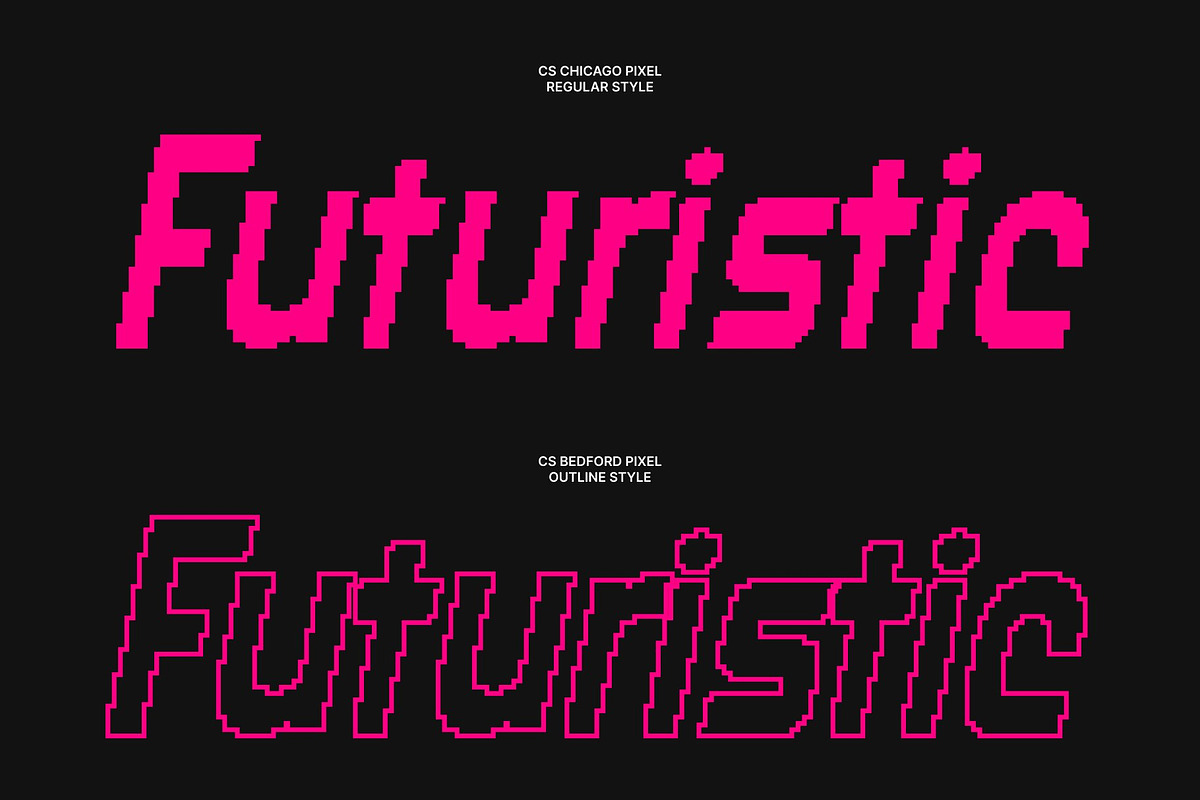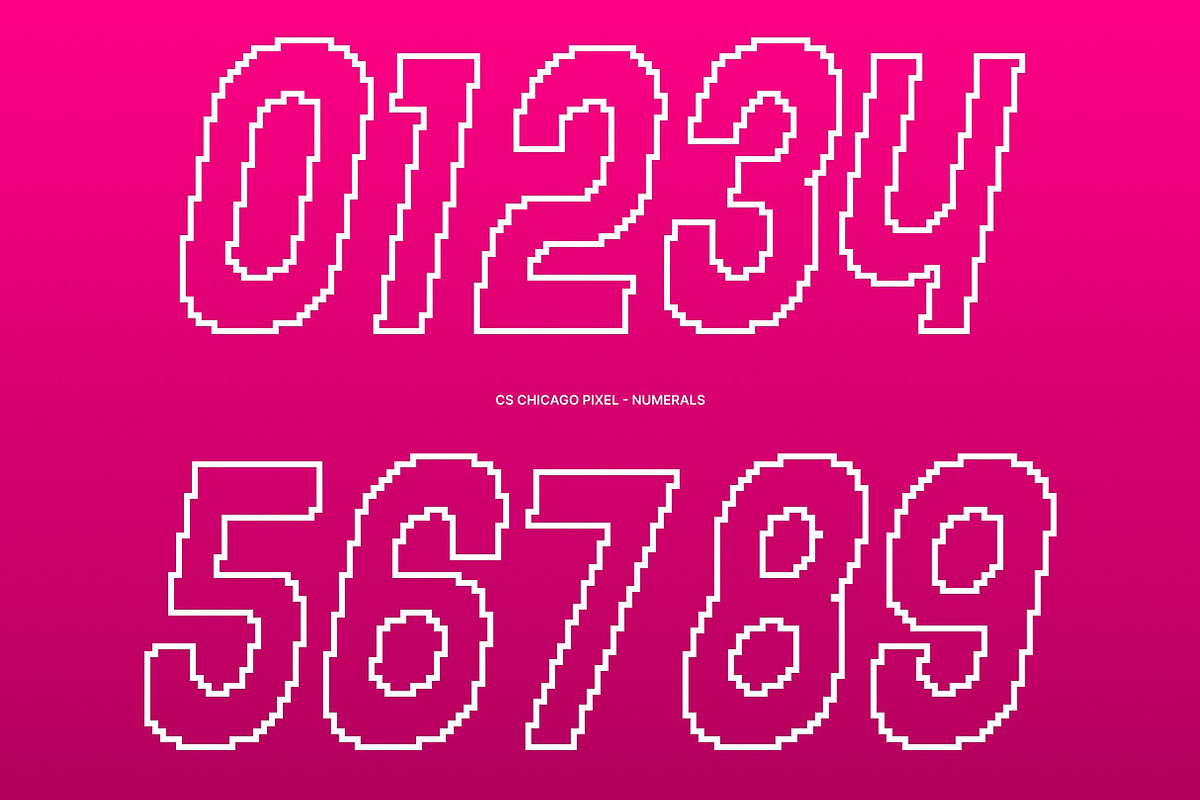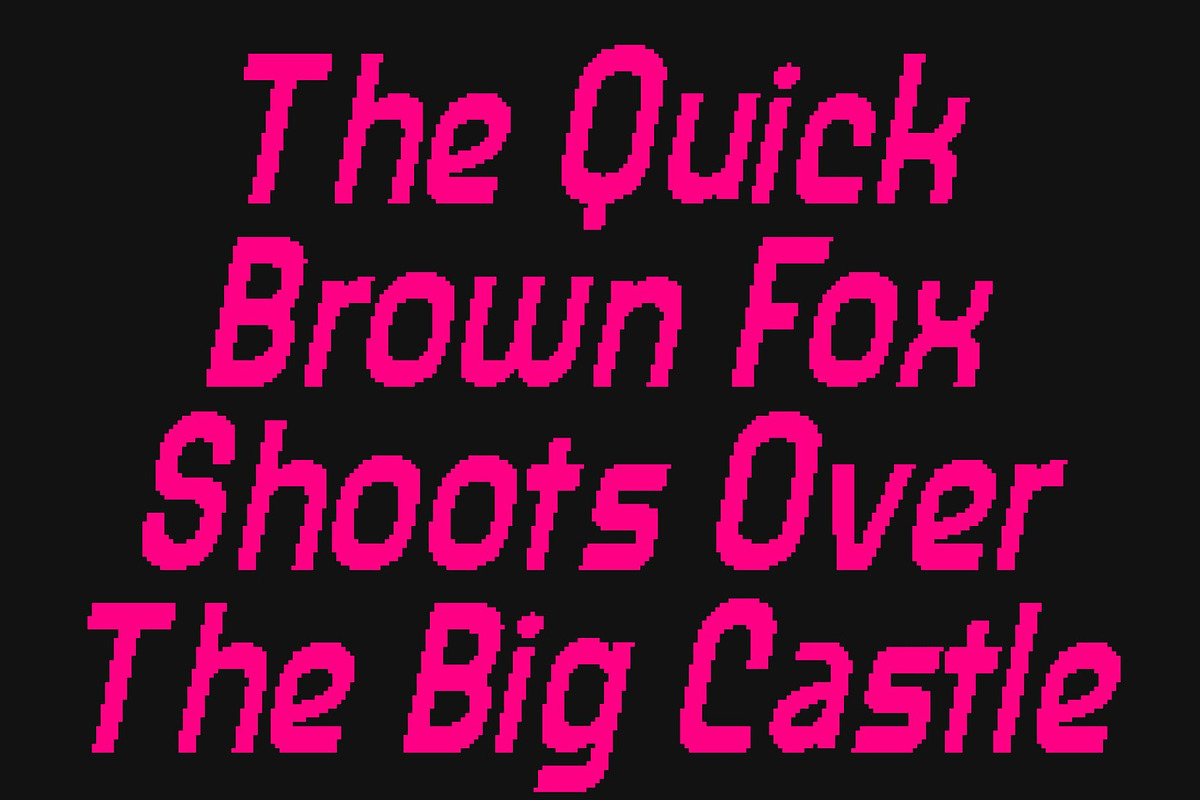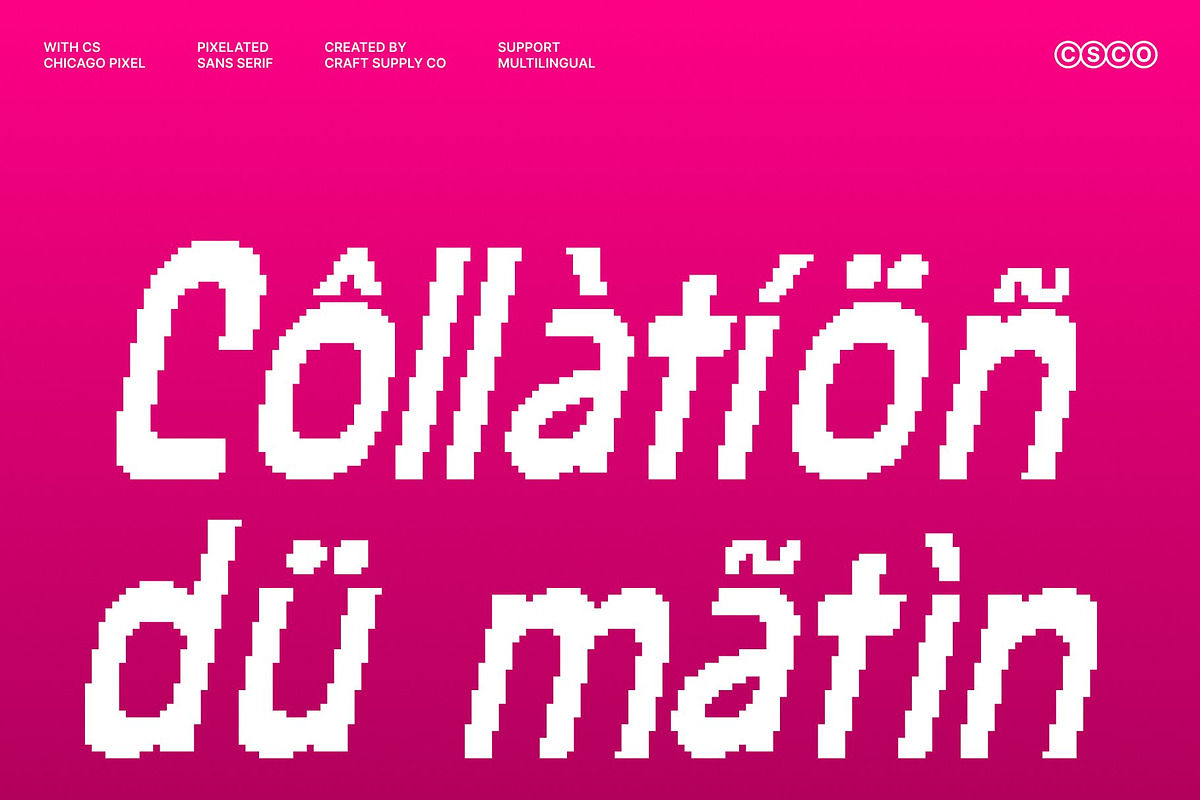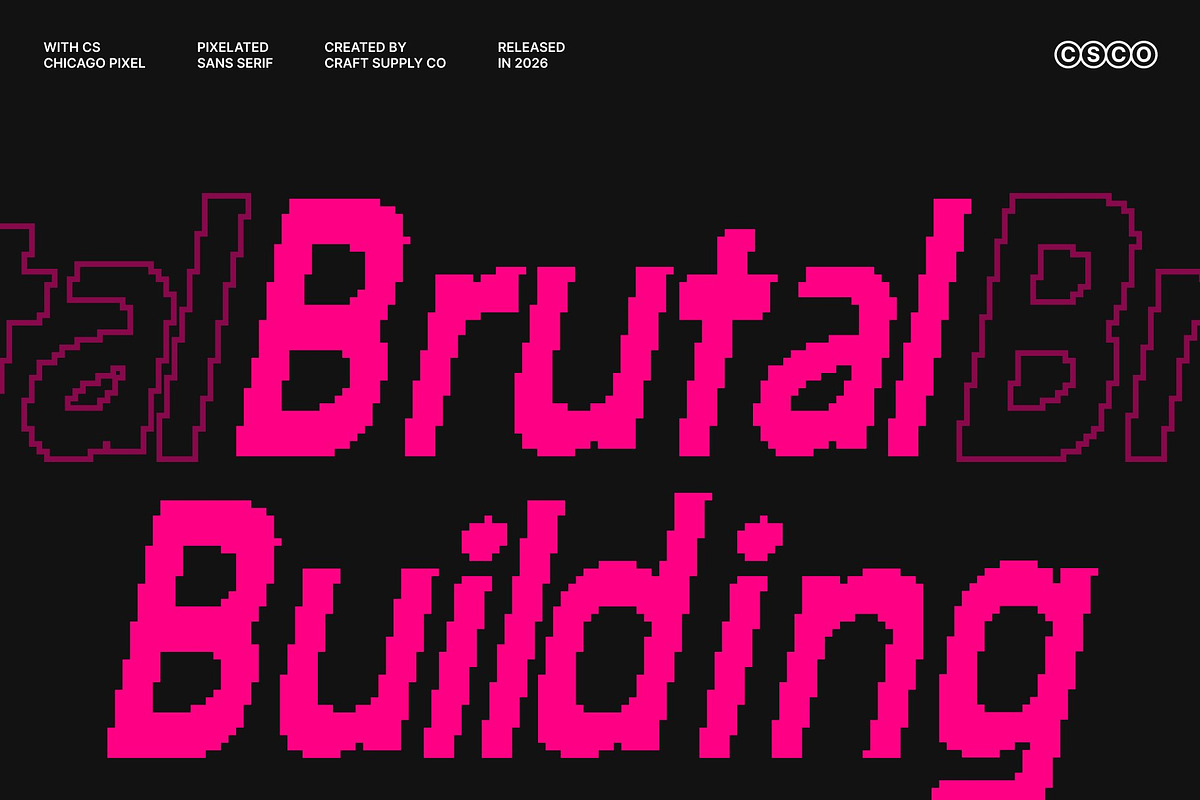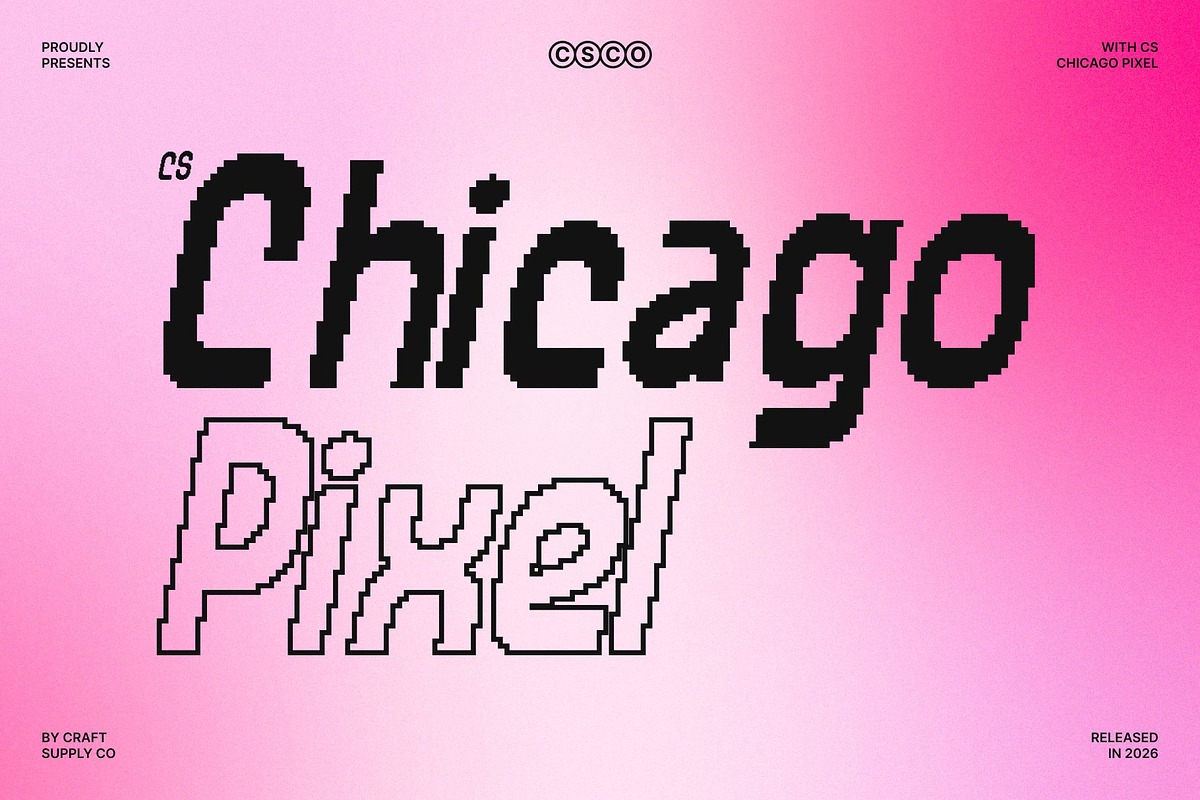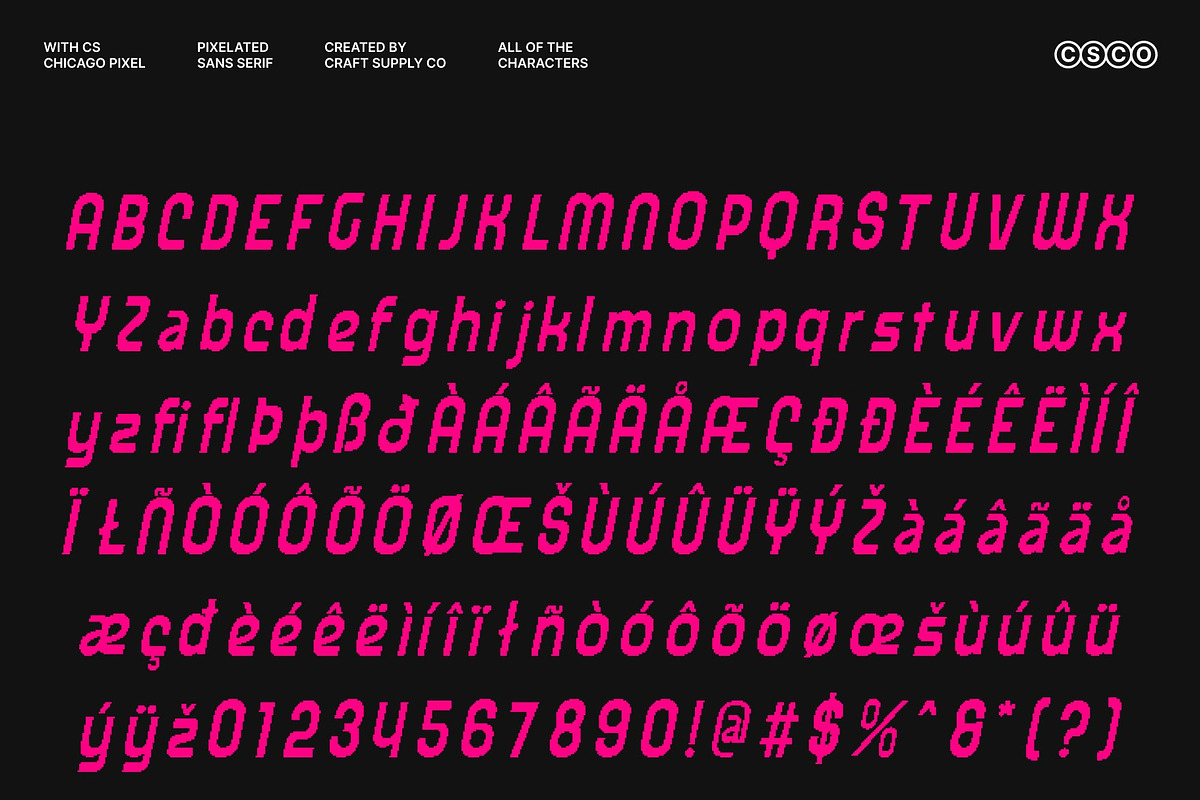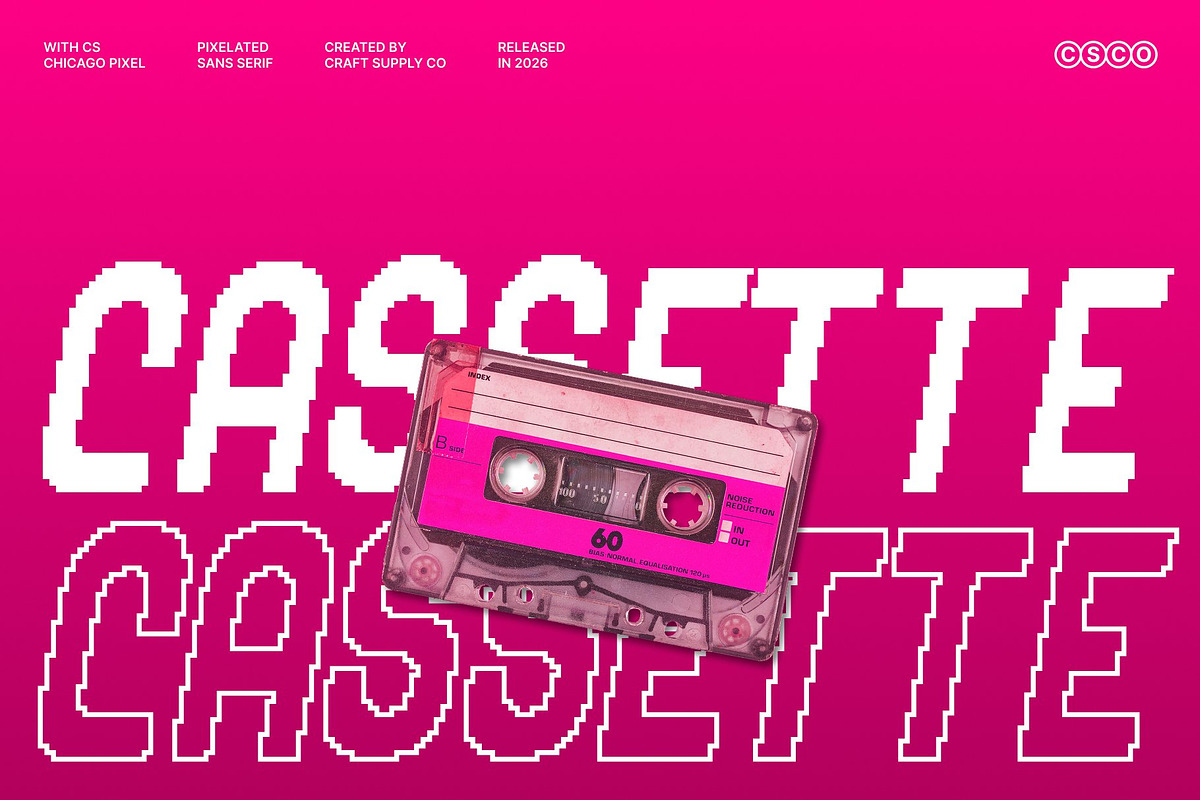
CS Chicago Pixel
CS Chicago Pixel – Where Retro Vibes Meet Techno Energy
Modern Pixel Display Sans Serif with Futuristic Flair This is an edgy display sans serif font that blends modern precision with the nostalgic rhythm of retro digital aesthetics. Built on a pixel-inspired structure and influenced by techno culture, it delivers a sharp, dynamic presence that feels futuristic while echoing the visual language of early digital eras.
Techno Structure with a Retro-Digital Soul Balancing geometric strength with subtle retro undertones, this font captures motion, rhythm, and electronic energy. Its bold shapes and controlled flow are aligned to a pixel grid, creating a font that bridges past and future with confidence. The fusion of techno-inspired design and classic digital structure gives it a distinctive identity stylish, expressive, and instantly recognizable.
Perfect for Branding, Posters, and High-Impact Visuals Designed to stand out in contemporary design spaces, this font thrives in branding, logos, posters, album covers, and event graphics. Its sleek form and commanding pixel presence make it ideal for high-impact compositions that demand energy, clarity, and attitude perfect for tech startups, music festivals, gaming visuals, and creative studios.
Stylish, Bold, and Distinctly Digital-Modern With its seamless blend of modern design precision and retro pixel charm, this font is more than just a typeface it’s a visual rhythm that captures the pulse of modern creativity. Use it to give your designs a futuristic edge infused with nostalgic confidence.
- CS Chicago Pixel Regular
- CS Chicago Pixel Outline